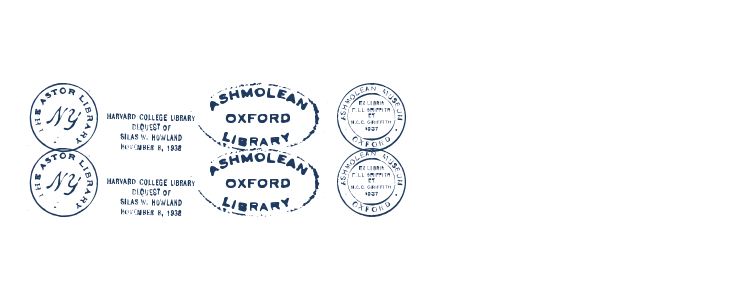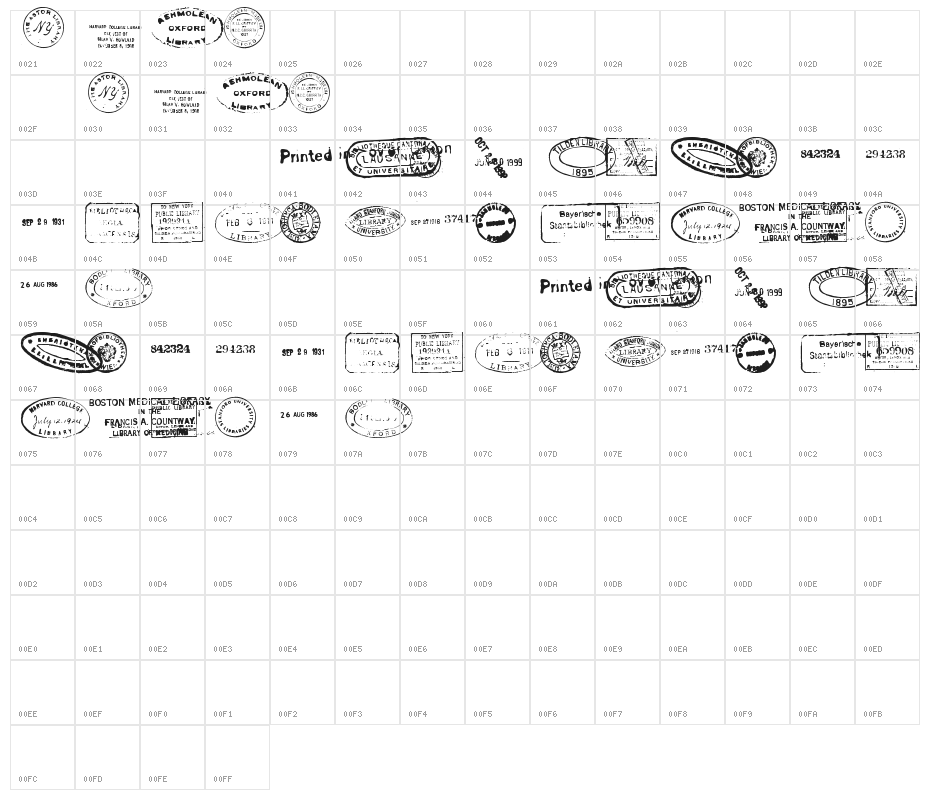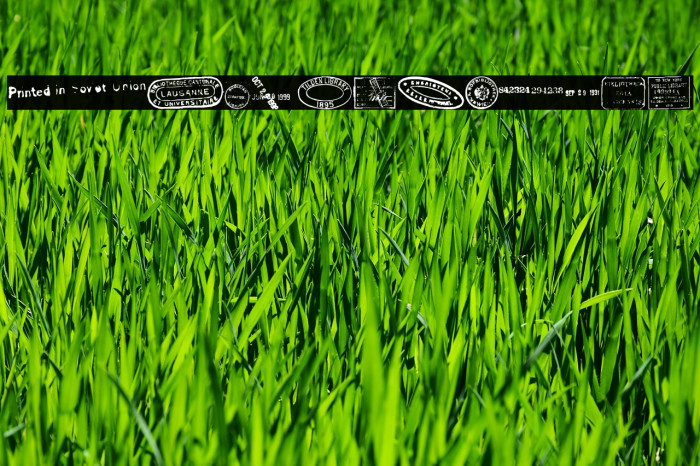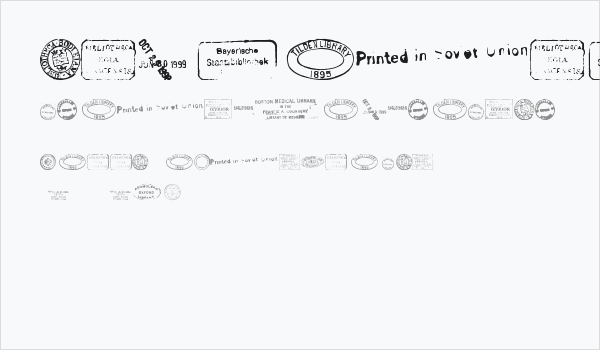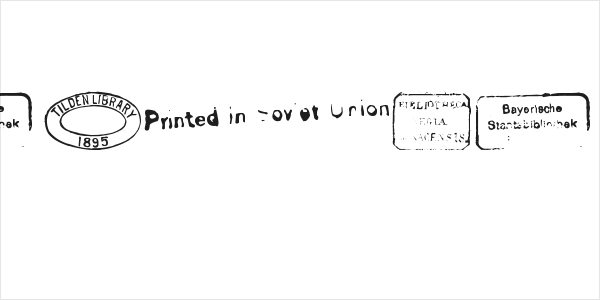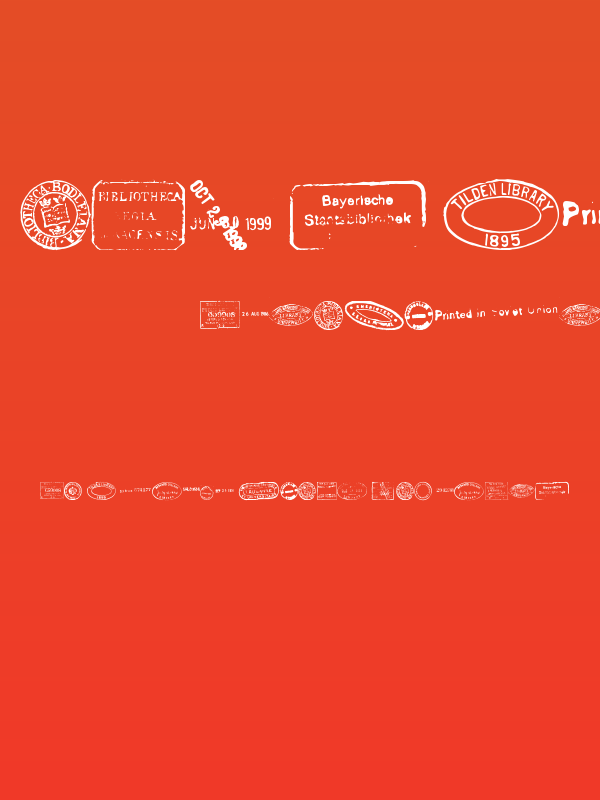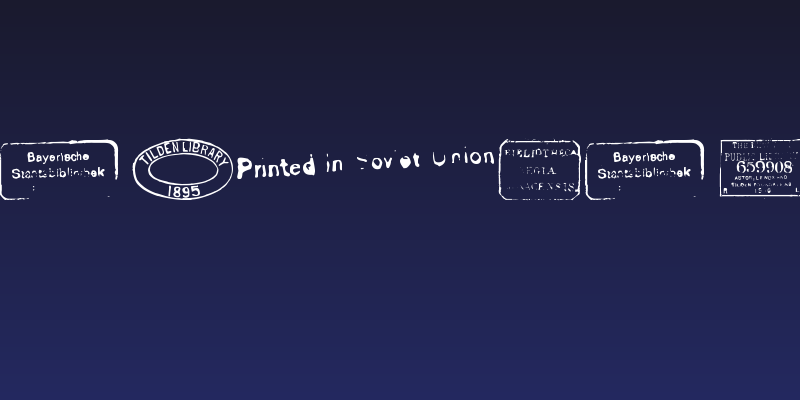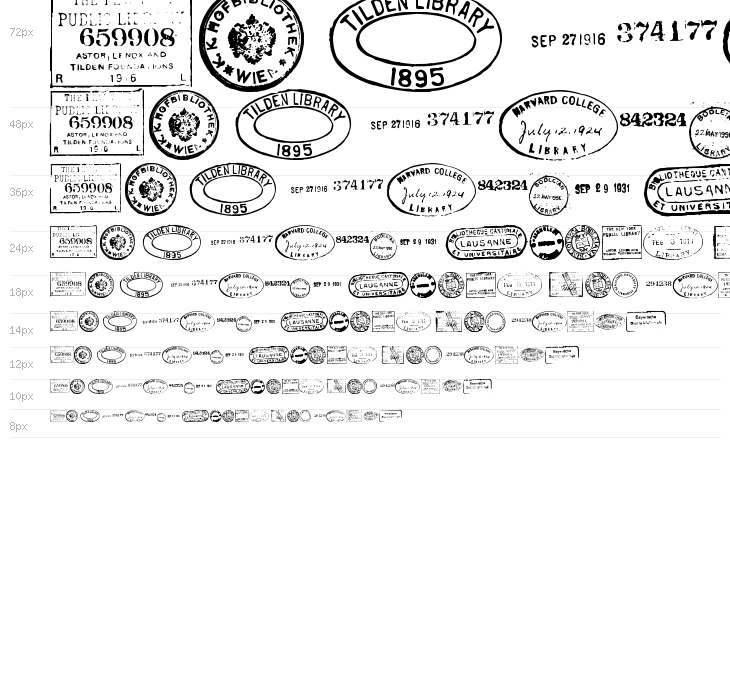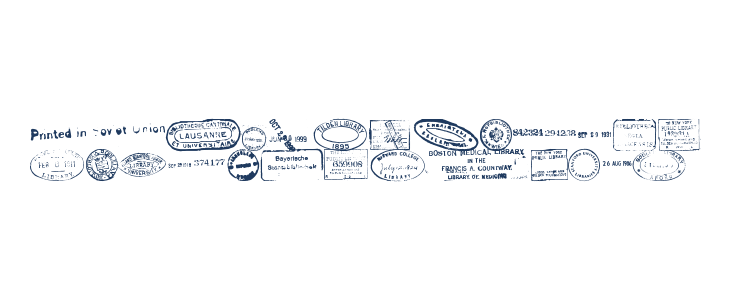
old seals tfb Font
old seals tfb Description
A decorative display font mimicking old library and archival seals, featuring a variety of oval, circular, and rectangular stamp designs with distressed, uneven letterforms and simulated ink textures. The characters are irregular, imitating the look of vintage rubber stamps and official seals, with some text appearing curved or warped to fit within the shapes.
| Overall Style | Vintage, Decorative |
| Use Case | Logos, Themed headlines, Decorative elements |
| Proposed Projects | Historical documents, themed invitations, book covers, escape room props, period piece graphics. |